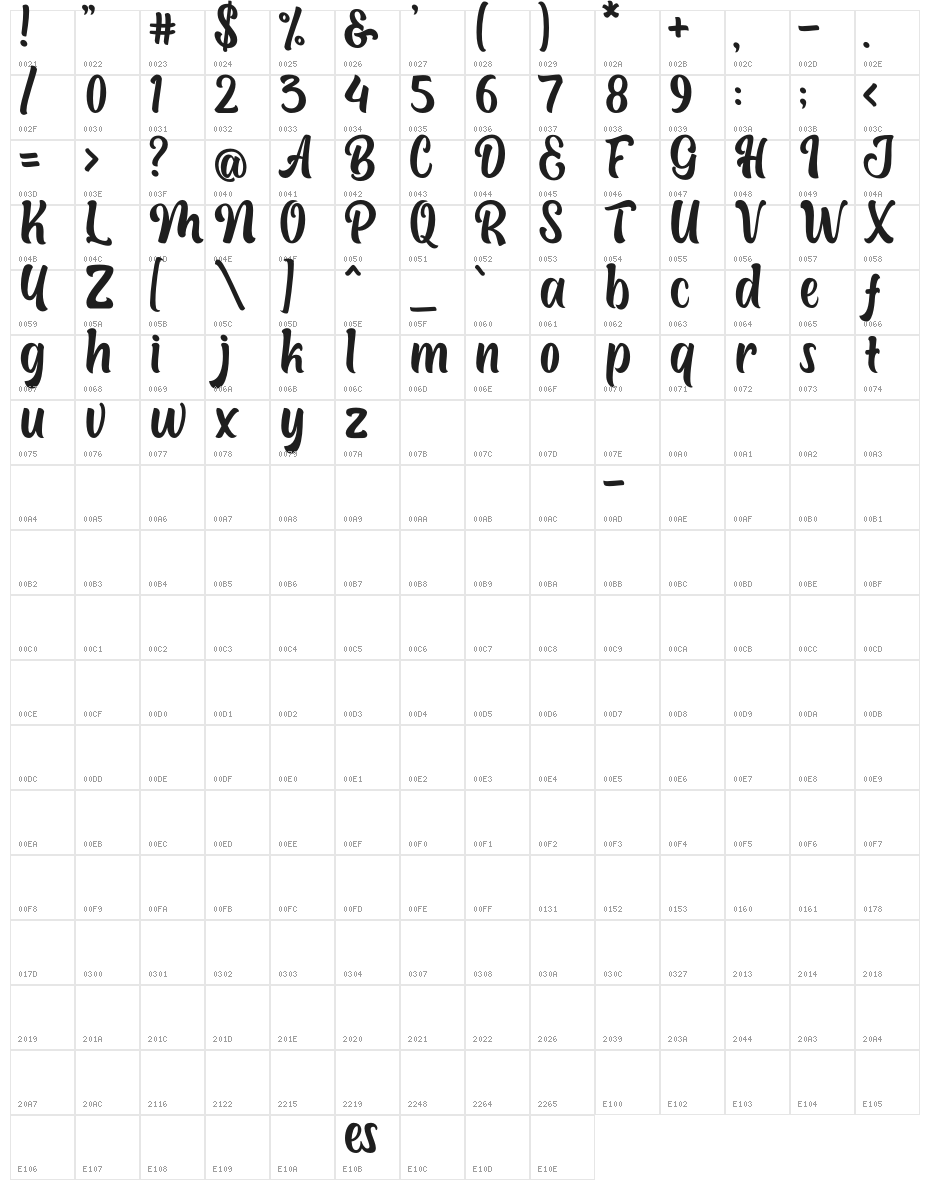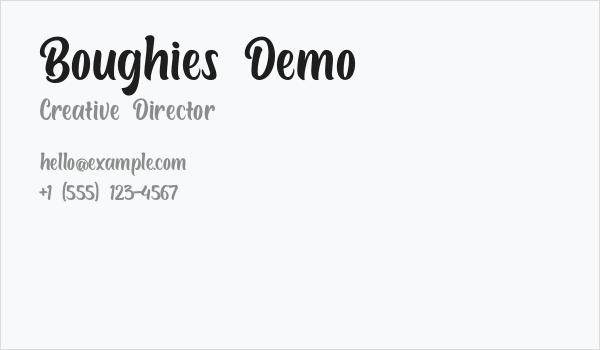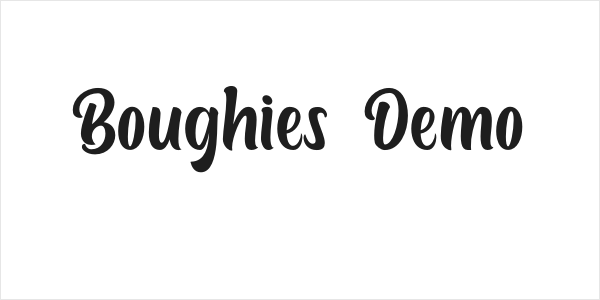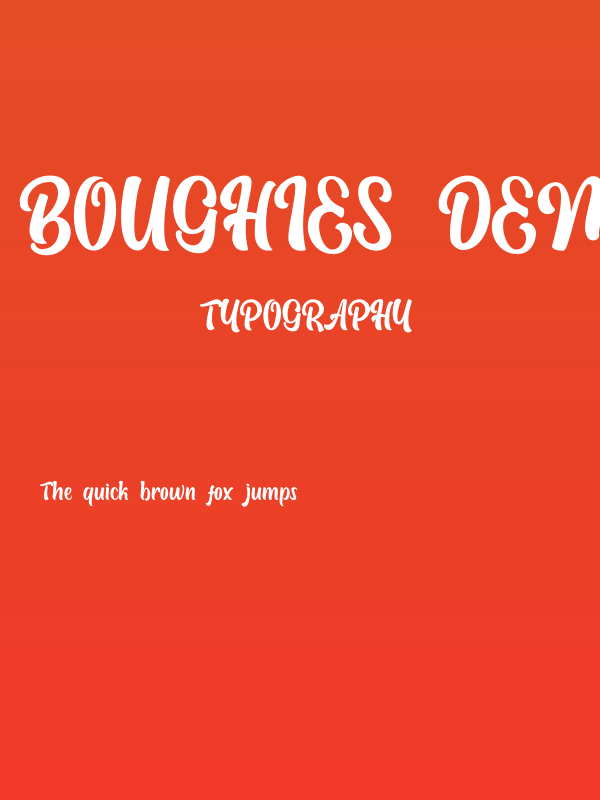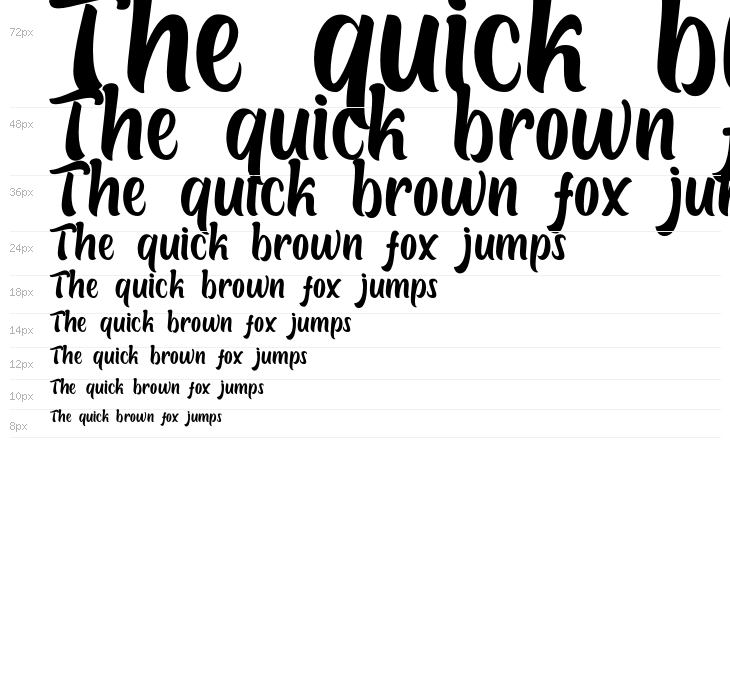
Boughies Demo Font
Boughies Demo Description
This font features a bold and playful script style with a handwritten feel. The letters are characterized by their smooth curves and flowing lines, giving it a lively and dynamic appearance. The uppercase letters are slightly larger and more pronounced, while the lowercase letters maintain a consistent flow. The numbers and special characters are designed to match the overall style, with a similar boldness and curvature. This font is versatile and can be used to add a personal touch to various design projects.
| Proposed Projects | Ideal for greeting cards, invitations, logos, and branding materials that require a personal and lively touch. |